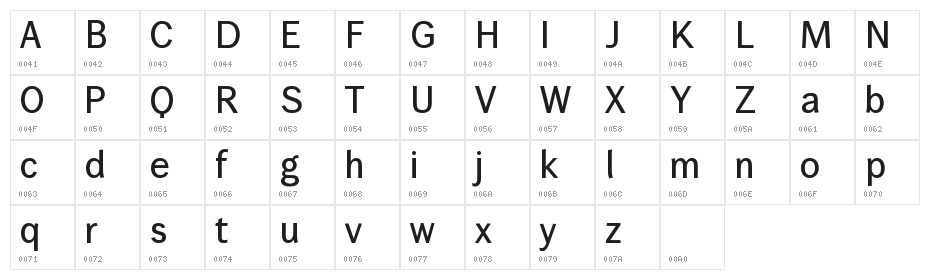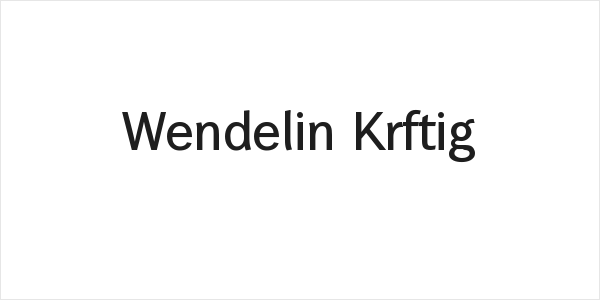
Wendelin-Krftig Font
Wendelin-Krftig Description
This font is a modern sans-serif typeface characterized by its clean and straightforward design. The letters are evenly spaced, providing a balanced and harmonious appearance. The uppercase letters are bold and assertive, while the lowercase letters maintain a consistent height, enhancing readability. The numerals are clear and distinct, making them suitable for various applications. The special characters are well-integrated, ensuring versatility in design projects. Overall, this font exudes a contemporary and professional vibe, making it ideal for both digital and print media.
| Proposed Projects | Ideal for corporate branding, web design, editorial layouts, and advertising materials. |